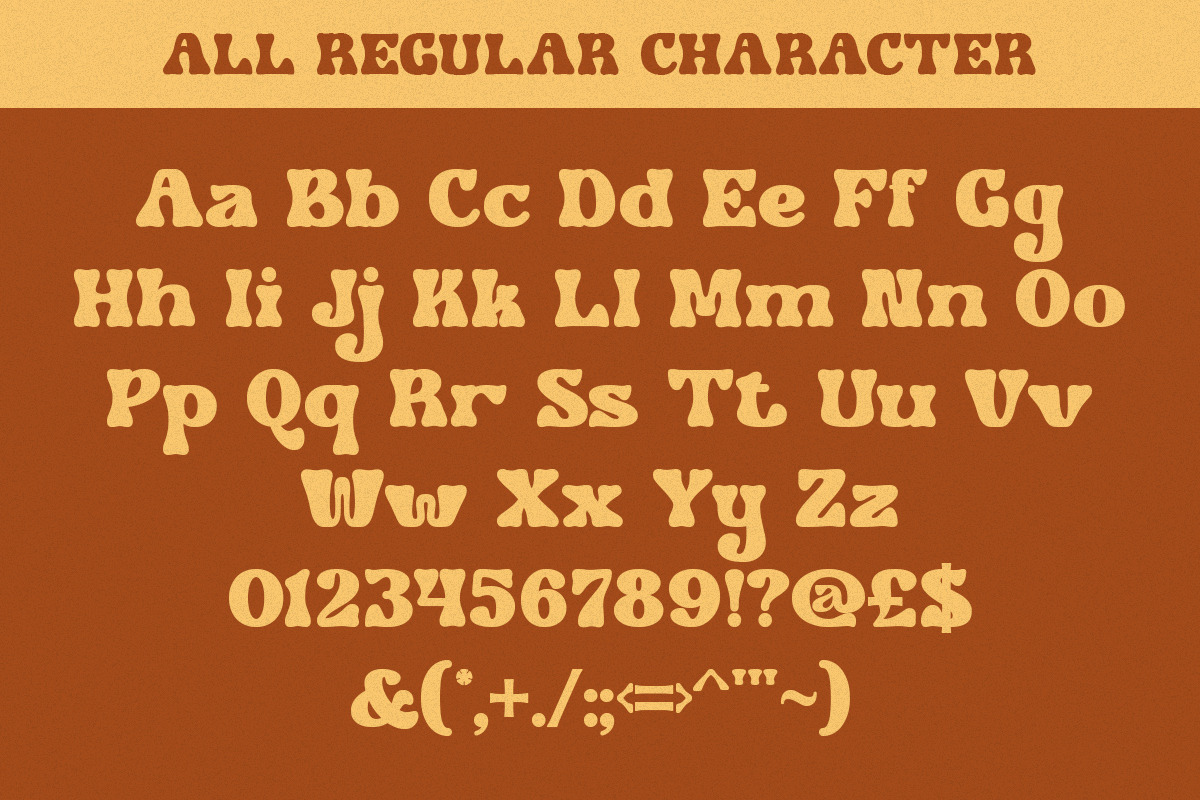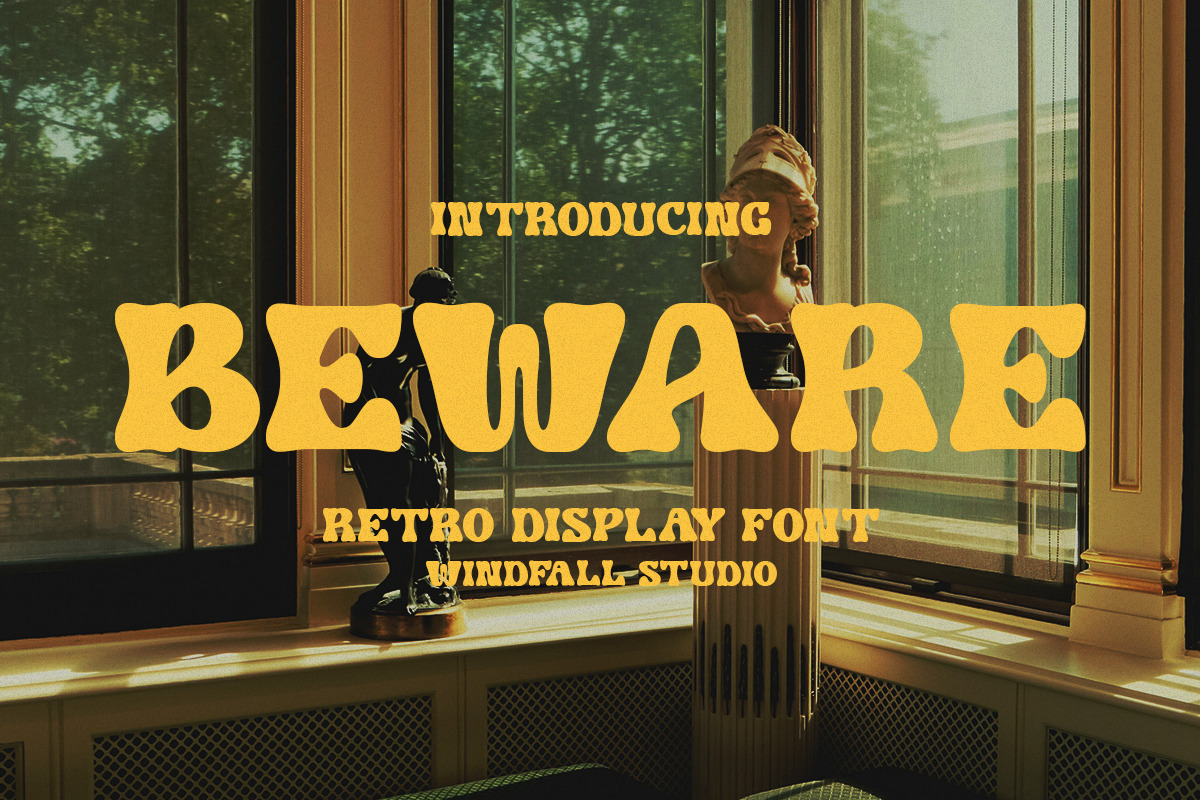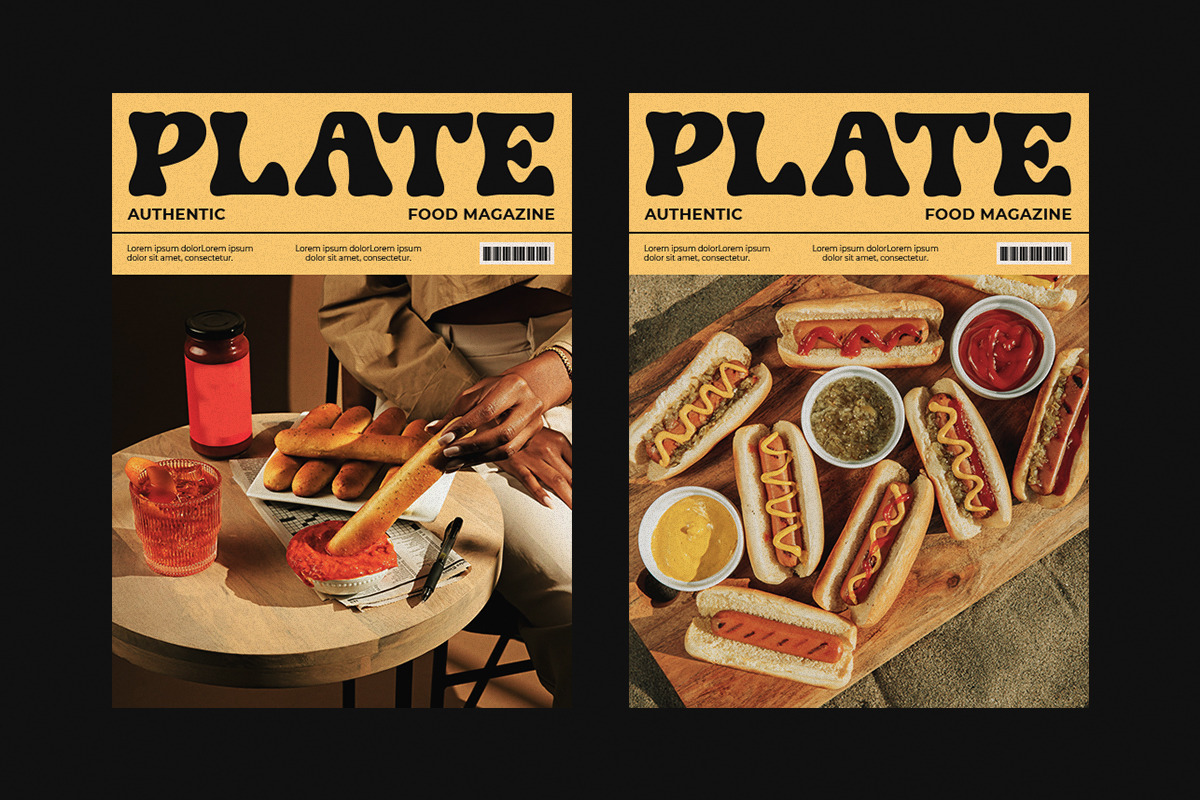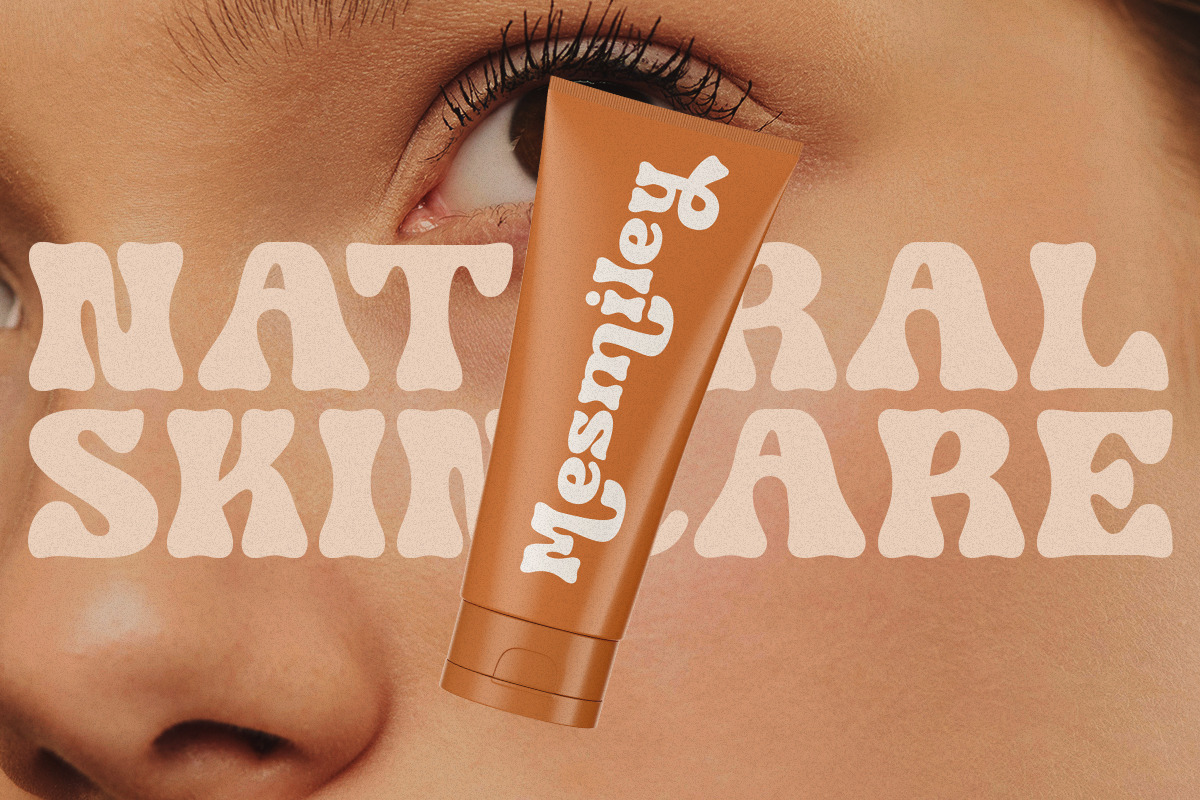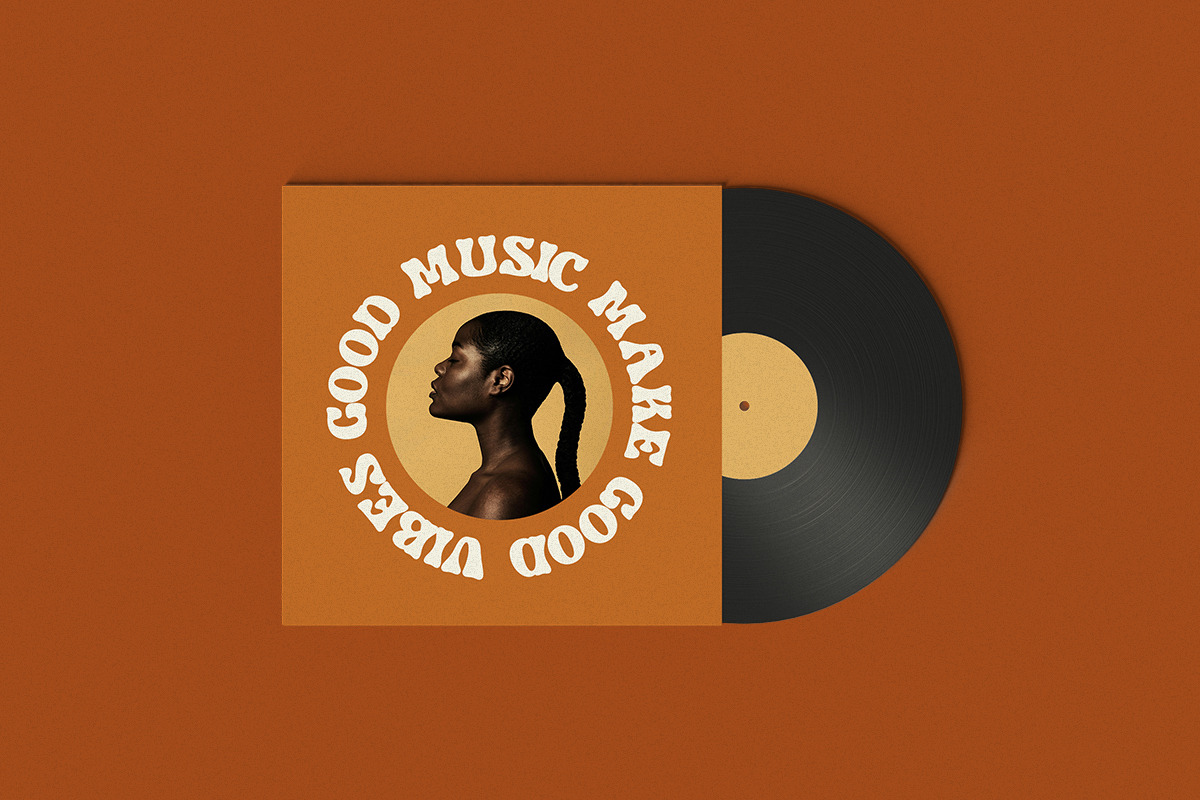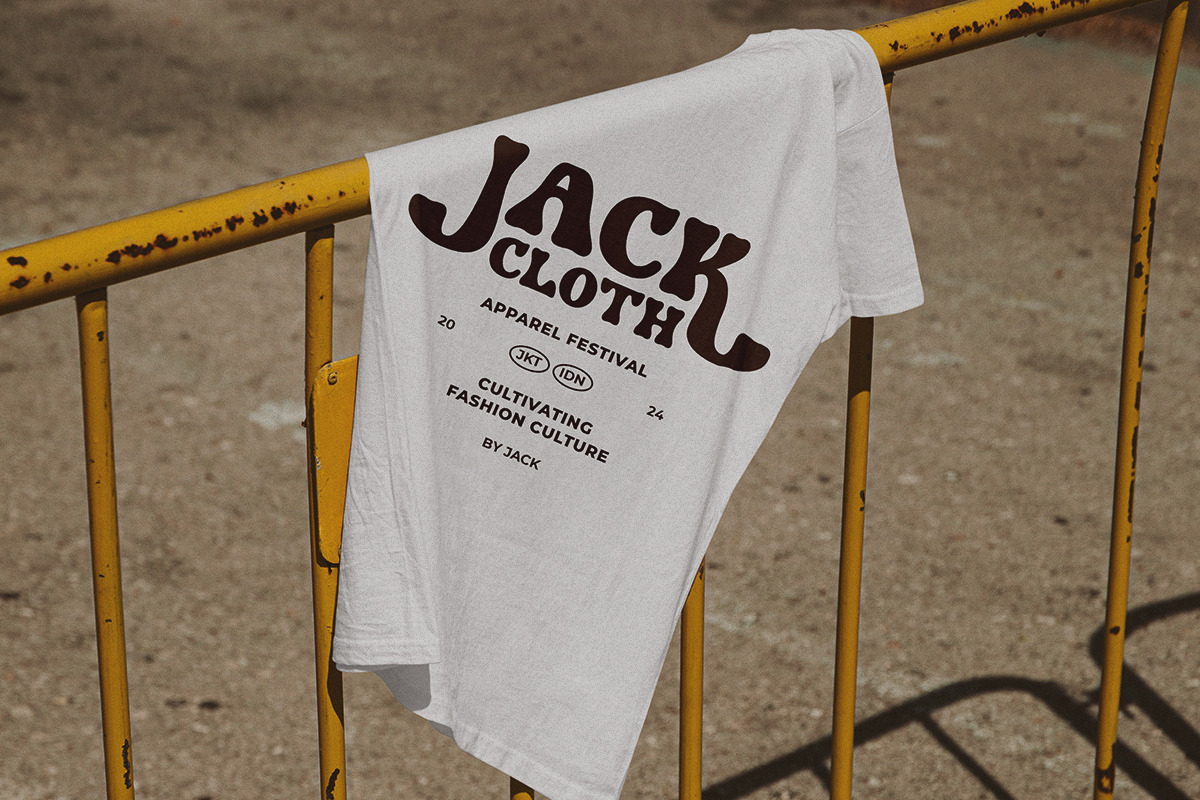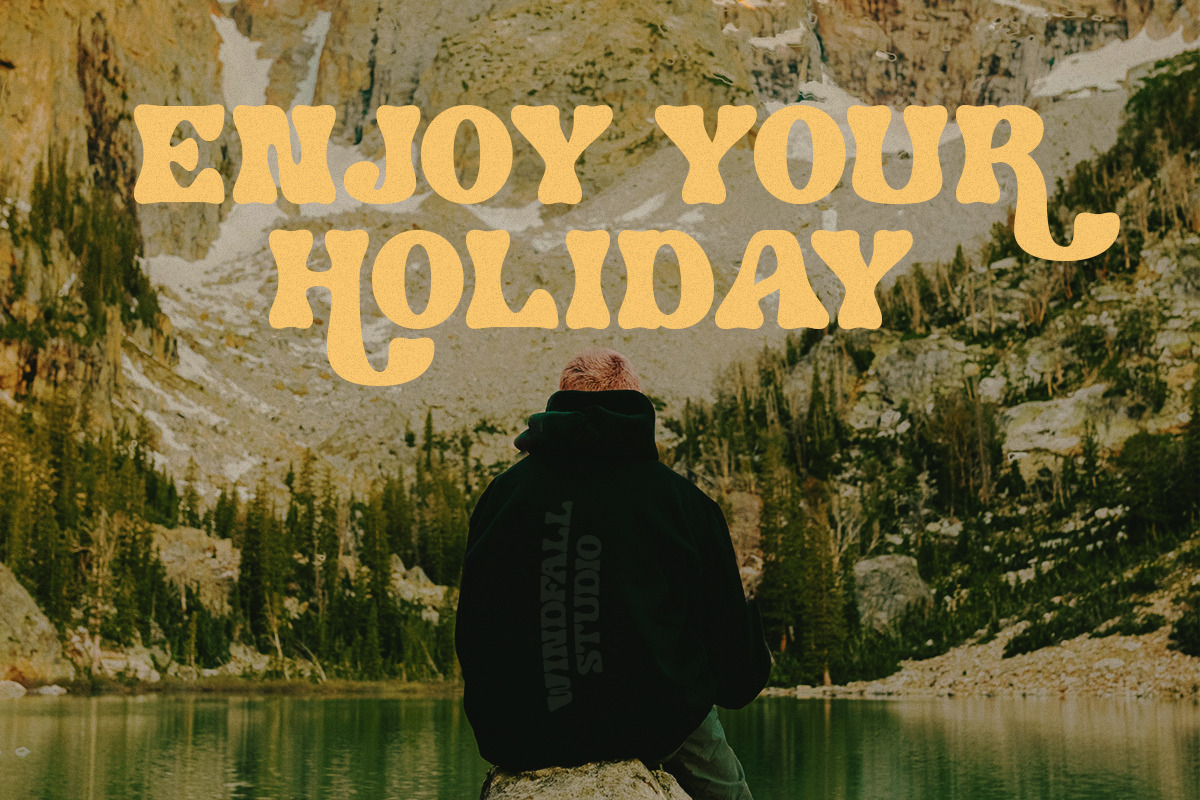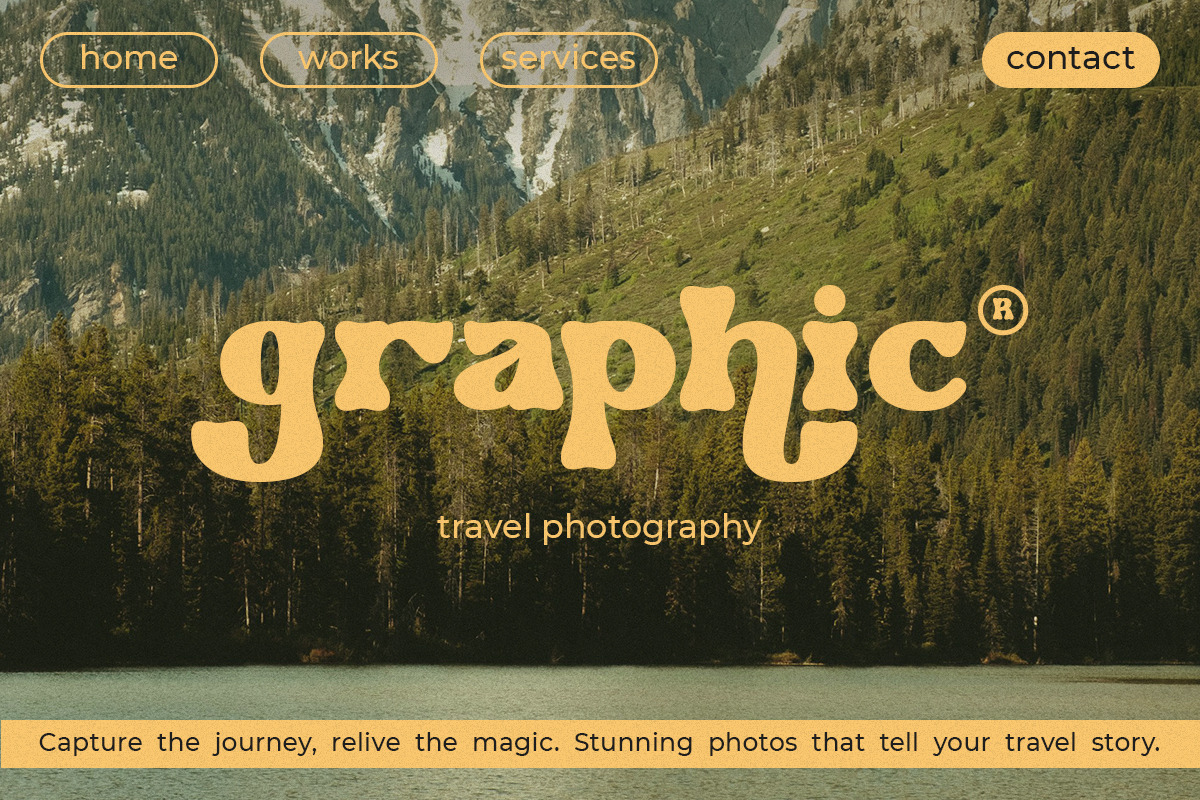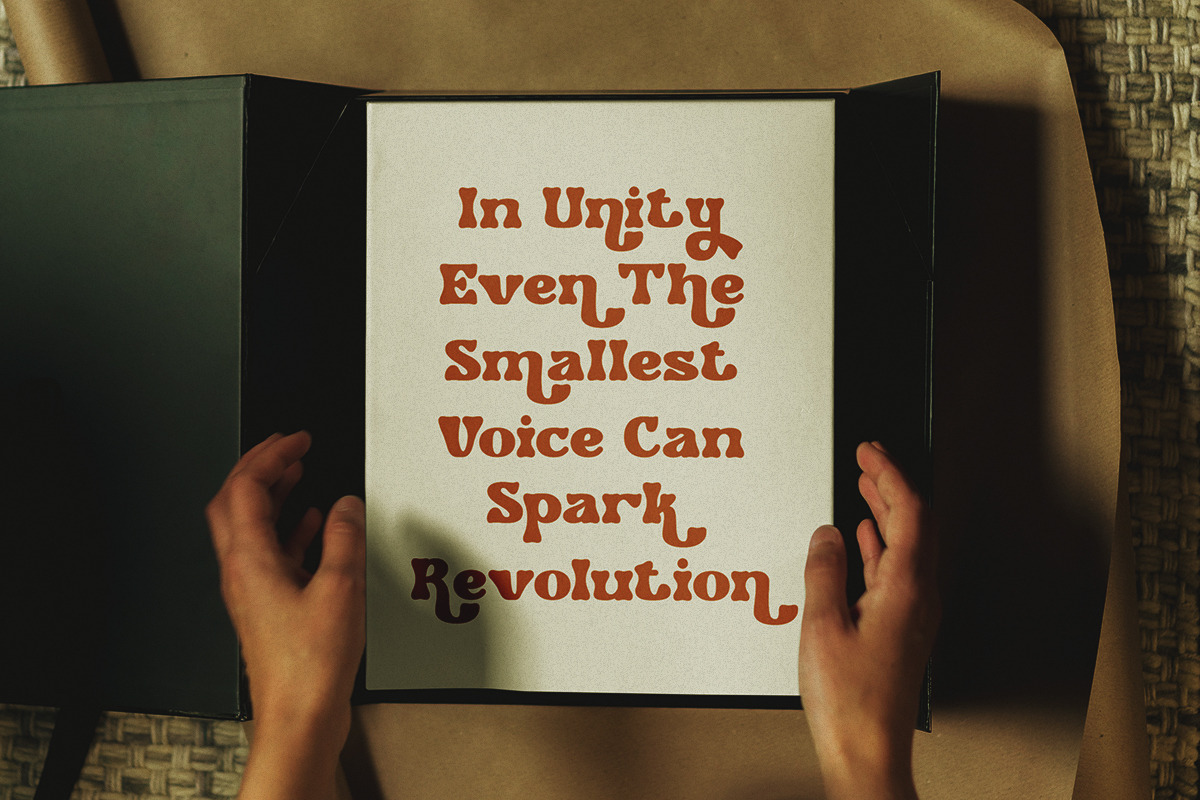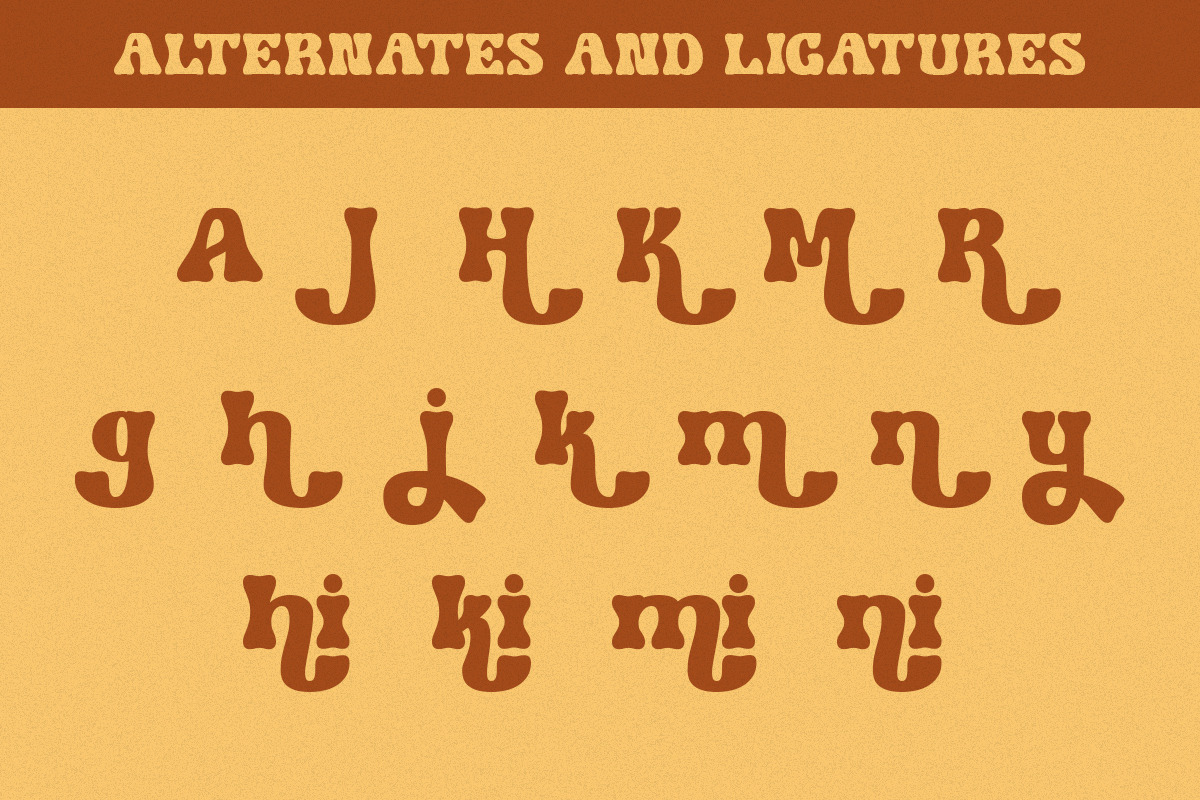
Beware -Bold Retro Typeface
Beware is a bold and captivating retro-inspired display font that balances cursive flow with futuristic precision. Drawing influences from Helvetica and Futura, Beware combines art deco sophistication with funky and playful energy. The font’s minimal design, combined with its premium and cinematic appeal, makes it versatile for corporate branding, college visuals, and summer themes. With a nod to tropical, nature, and beach aesthetics, Beware is perfect for projects that require modern minimal vibes while maintaining a fancy and standout look.